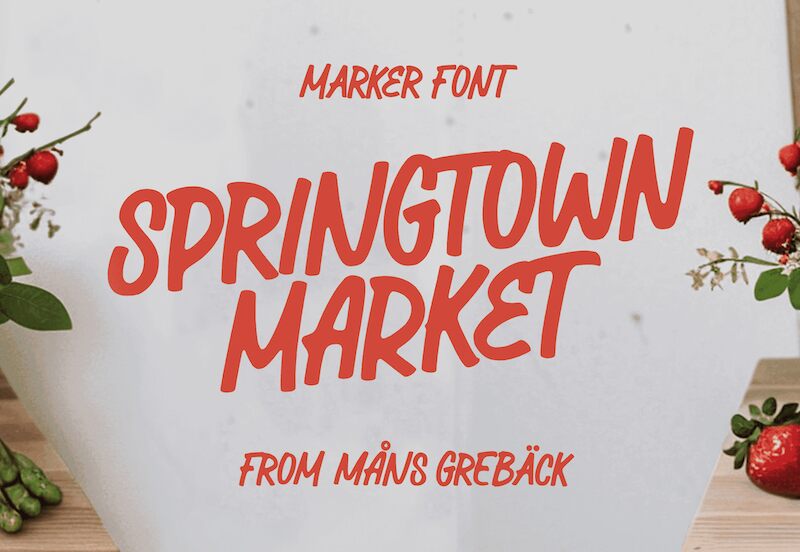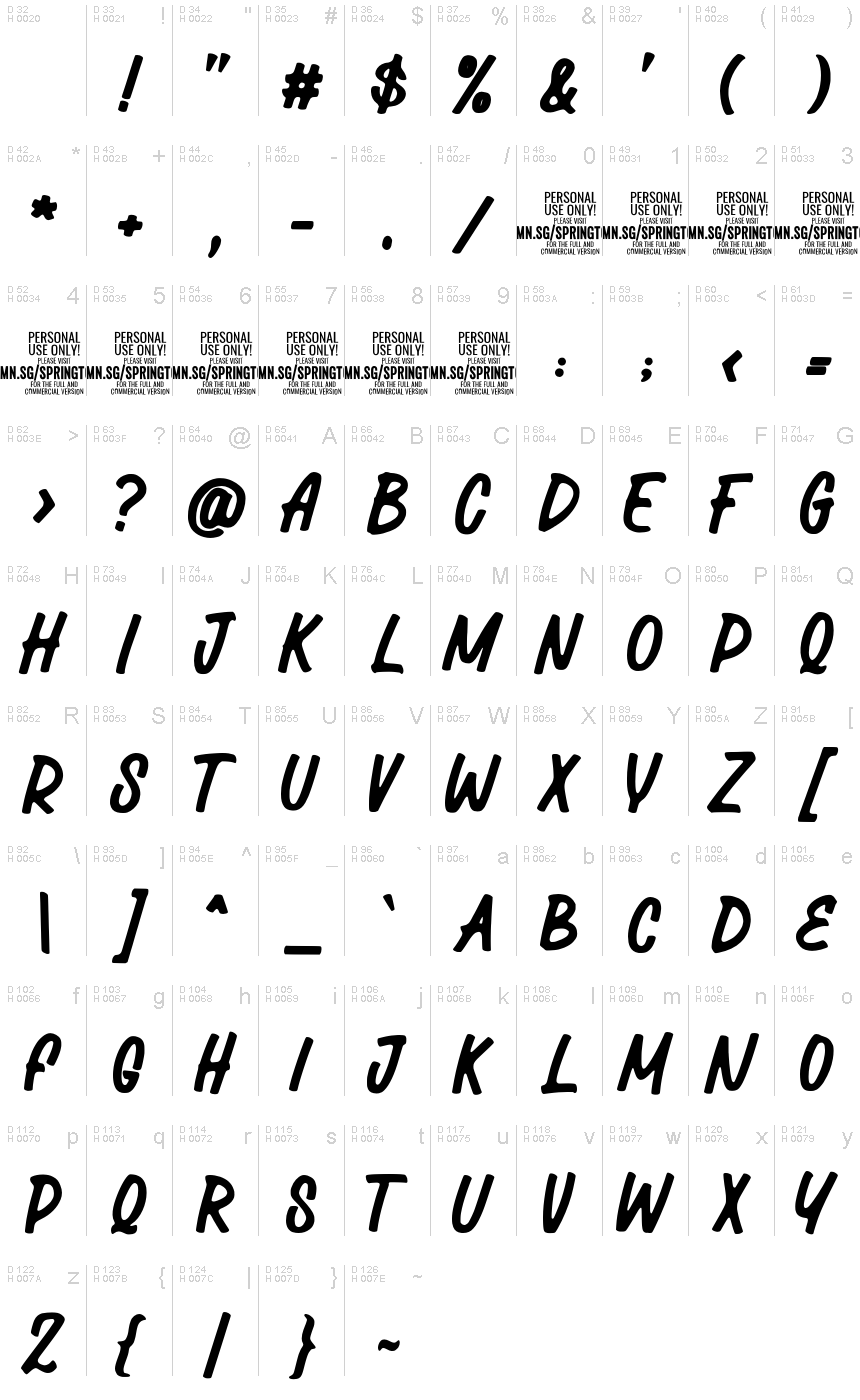
Springtown Market is a captivating brush font that exudes a distinct rustic charm. Crafted by designer Mans Greback, this font boasts an organic, handwritten aesthetic that immediately draws the eye. The flowing, expressive letterforms evoke a sense of artisanal craftsmanship, making it ideal for branding, packaging, and editorial design projects seeking a warm, authentic feel.
Springtown Market's versatility shines through its ability to seamlessly transition between bold display settings and more subtle body copy. Its natural, brush-like strokes lend an air of authenticity and character to any design, whether adorning a local market's logo or elevating the packaging of a premium food product.